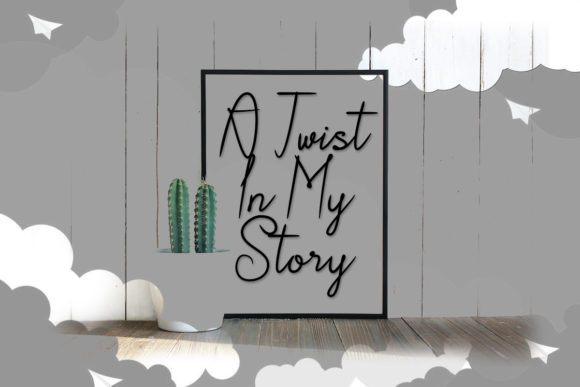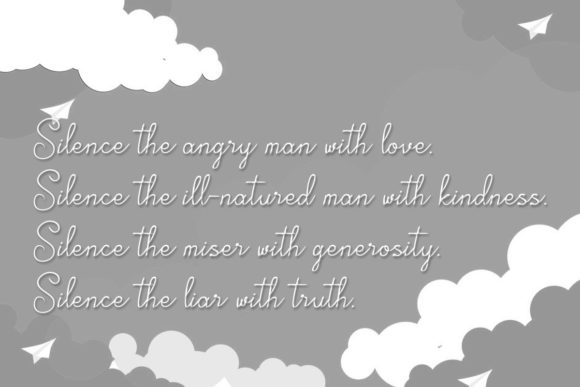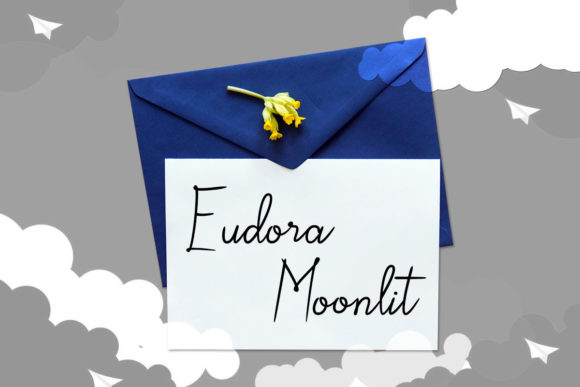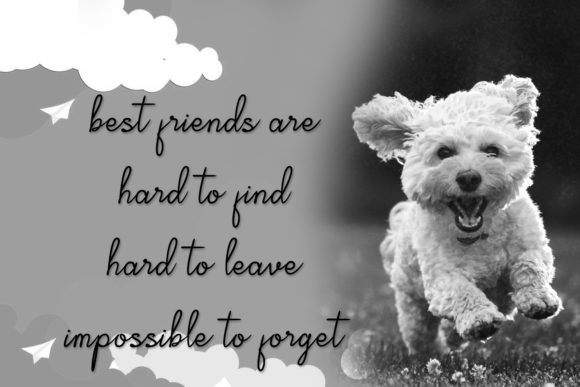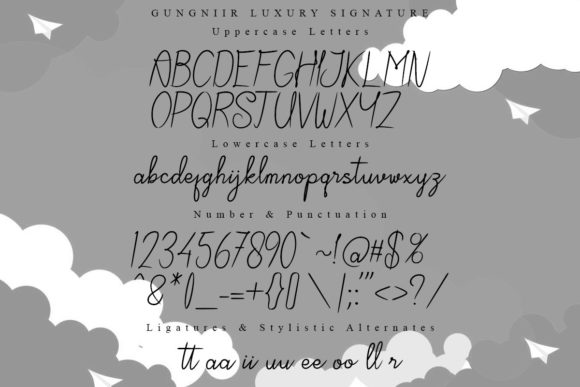
A Delicate Touch: Introducing Gungniir Font
As a designer, there’s nothing quite like the thrill of bringing a new idea to life. It’s that moment when the blank page is filled with color, texture, and movement, and you know you’re onto something special. For me, it’s the quiet moments of creativity that often spark the most innovative ideas. And it’s exactly this kind of inspiration that the Gungniir Font was designed to capture.
This beautiful script font exudes elegance and class, making it the perfect choice for designers looking to add a touch of sophistication to their work. Whether you’re creating a wedding invitation, a branding package, or a digital magazine, the Gungniir Font is sure to bring a refreshing and refined look to your designs.
Gungniir Font Key Features
- Unique Characteristic: Gungniir Font features a unique, handwritten style with a mix of modern and vintage elements, making it suitable for creative and artistic projects
Gungniir Font Review
Gungniir Font is a beautiful, high-end font that stands out from the crowd. ✨ Its unique, modern design makes it perfect for creating a stylish and luxurious feel in your projects. ✨ The font is highly versatile, suitable for both digital and print media, and its readability is top-notch.
One of the standout features of Gungniir Font is its wide range of languages supported, making it a great choice for multilingual projects. ✨ The font also includes a variety of weights, from light to bold, giving you plenty of options to customize your design.
- ⚠️ The font may not be suitable for body text due to its high-end, decorative nature.
- ⚠️ The font’s complexity may cause issues with certain software or fonts engines.
Overall, I would give Gungniir Font a solid 4 out of 5 stars. While it has its limitations, its unique design, versatility, and high-end feel make it a great choice for designers looking to create a luxurious and stylish aesthetic in their projects.
Tips for Getting the Most Out of Gungniir Font
To get the most out of Gungniir Font, try the following:
- Experiment with different font sizes and styles to achieve the desired look.
- Use the font in combination with other design elements to create a cohesive look.
- Take advantage of the font’s unique features, such as its bold and italic styles.
Common Use Cases for Gungni
Alternatives to Gungniir Font for Designers
Pacifico is a beautiful, elegant script font perfect for adding a touch of sophistication to your designs. It’s ideal for use in titles, headings, and any other text that requires a sense of luxury and refinement.
Compared to Gungniir Font, Pacifico has a more refined and polished look, making it suitable for high-end branding and advertising materials. While Gungniir Font has a more modern and edgy feel, Pacifico exudes a sense of classic elegance.
Great Vibes is a fun, energetic script font that’s perfect for creating a playful and youthful atmosphere in your designs. It’s ideal for use in titles, headings, and any other text that requires a sense of excitement and energy.
Compared to Gungniir Font, Great Vibes has a more carefree and spontaneous feel, making it suitable for use in social media graphics, event promotions, and other materials that require a sense of fun and adventure.
Carolyna Pro is a beautiful, elegant script font that’s perfect for adding a touch of sophistication and luxury to your designs. It’s ideal for use in titles, headings, and any other text that requires a sense of refinement and elegance.